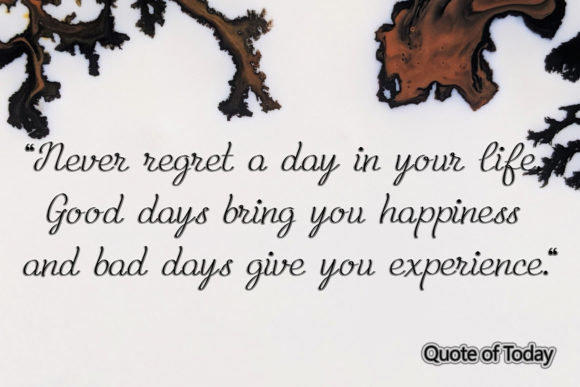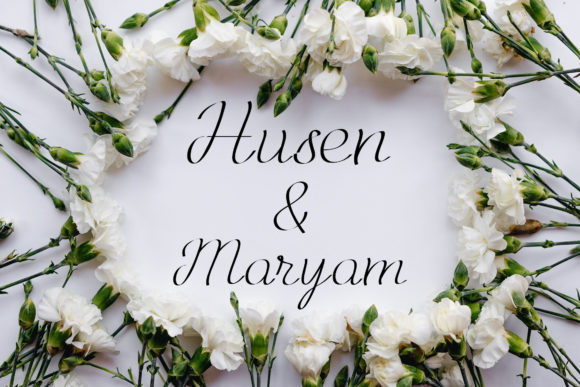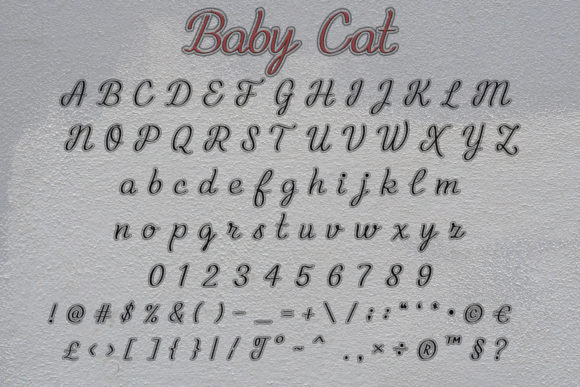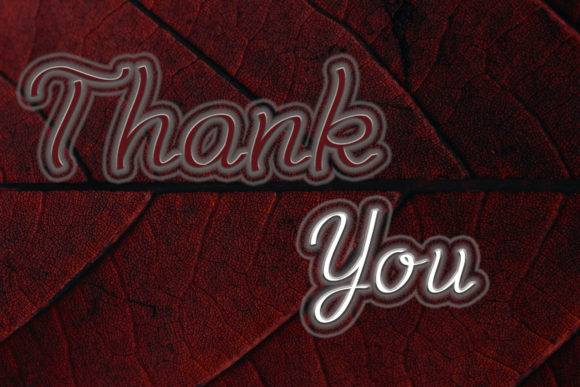
Discover the Whimsy of Baby Cat Font
You know that moment when an idea strikes you, and you can’t wait to bring it to life? For designers, it’s the spark that sets their creativity ablaze. For me, it’s the gentle purr of a cat, and the soft curves of a handwritten font that evoke a sense of wonder. That’s where Baby Cat Font comes in – a delicate, elegant, and flowing handwritten font that adds a touch of whimsy to any design.
Baby Cat Font is more than just a pretty face; it’s a versatile tool that can elevate even the simplest of designs. With its beautiful and well-balanced characters, it’s the perfect addition to any creative project. Whether you’re designing a wedding invitation, a children’s book, or a website, Baby Cat Font is sure to make your ideas come alive.
Baby Cat Font Key Features
- Character Set: The font includes a wide range of characters, including uppercase and lowercase letters, numbers, punctuation marks, and special characters.
- Unique Characteristics: The Baby Cat Font features a cute and playful design, with rounded edges and a subtle texture that gives it a hand-drawn feel.
- Font Style: The font is available in Regular and Bold weights, making it suitable for a wide range of design applications.
Baby Cat Font Review
Overall, the Baby Cat Font is a unique and playful typeface that can add a touch of whimsy to your design projects. Here’s what I like about it: ✨
- The font’s cursive script gives it a soft, endearing feel that’s perfect for designs targeting younger audiences or those with a childlike charm.
- The subtle variations in letterform shape and size create a sense of movement and fluidity, making the font more engaging to read.
- The font’s playful nature makes it a great choice for titles, headings, or other design elements where you want to add a bit of personality.
- The font may be too ornate or busy for certain design applications, such as body text or complex layouts.
- The font’s script nature can make it difficult to read at small font sizes or in low-resolution environments.
- The font’s overall aesthetic may not be suitable for all design styles or industries, such as corporate or formal designs.
Overall, the Baby Cat Font is a fun and creative typeface that can add a unique touch to your designs. While it may not be suitable for all projects, it’s a great choice for those looking to add a bit of whimsy and personality to their work.
Baby Cat Font is ideal for:
- Birthday invitations and party graphics
- Social media graphics and advertisements
- Custom illustrations and graphics
- Presentations and documents with a playful tone
Alternatives to Baby Cat Font
Playfair Display is a luxurious, high-end serif font that is perfect for formal and elegant designs. It features intricate details and ornate flourishes, making it ideal for invitations, wedding designs, and high-end branding. Compared to Baby Cat Font, Playfair Display is more sophisticated and formal, while Baby Cat Font is playful and whimsical.
Great Vibes is a modern script font that is perfect for creating a sense of relaxation and calmness. It features flowing lines and a friendly, approachable feel, making it ideal for wellness, yoga, and spa designs. Compared to Baby Cat Font, Great Vibes is more laid-back and soothing, while Baby Cat Font is playful and energetic.